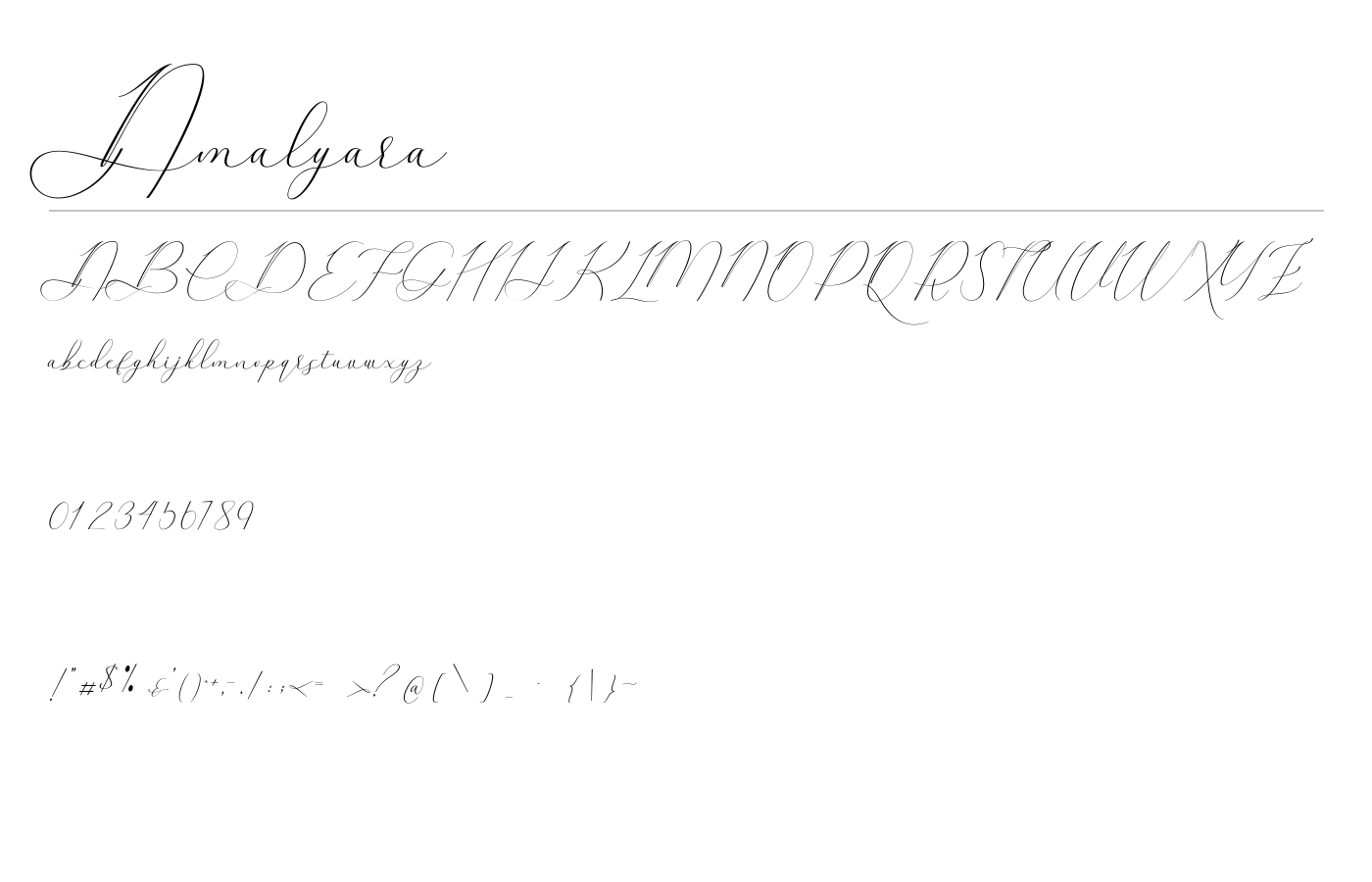
Amalyara is an elegant, delicate script font with thin, flowing strokes and graceful, calligraphic letterforms that evoke a sense of sophistication and romance. Its fine lines and airy spacing make it ideal for luxury branding, wedding invitations, and high-end editorial uses where a refined, stylish touch is desired. This font shines best in large formats like headlines or logos, where its intricate details can truly stand out.
Amalyara Font
About Amalyara Font
| Font family | Amalyara Font |
| Designer | Nurkhalidin |